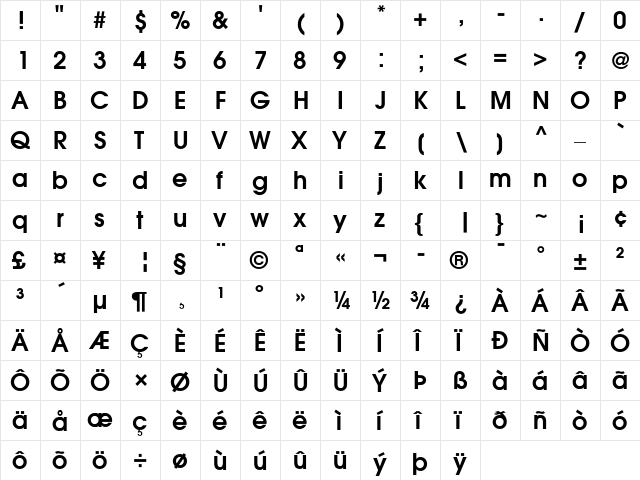
AvantGarde Bold Font Preview
AvantGarde Bold
Design Context for AvantGarde Typeface
AvantGarde takes a measured approach to typography — its balanced proportions and neutral character make it a reliable workhorse for both digital and print work. The heavy weight commands attention and anchors typographic hierarchies.
Pro Tip: Use AvantGarde in both headline and body roles to test its range before committing to a single application.